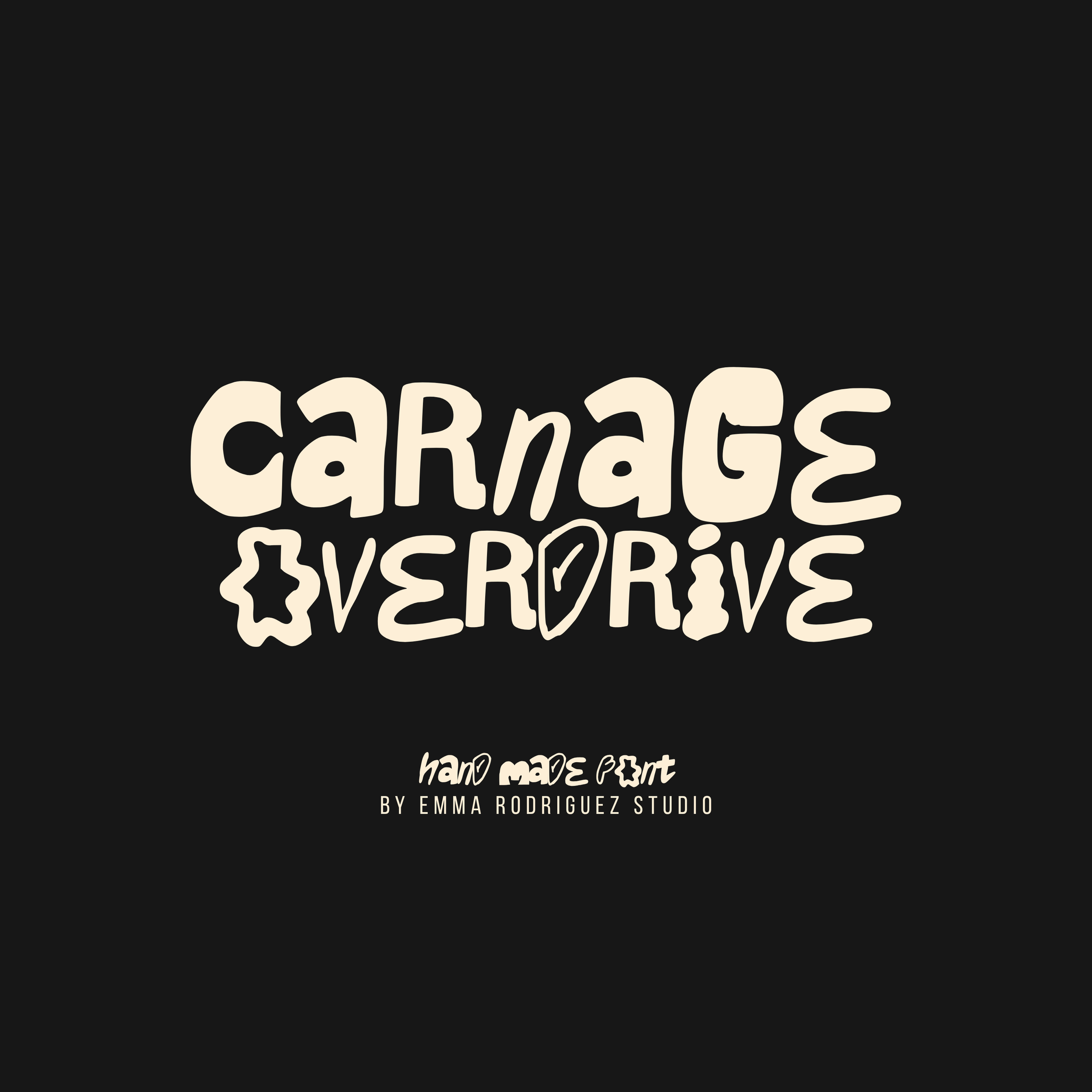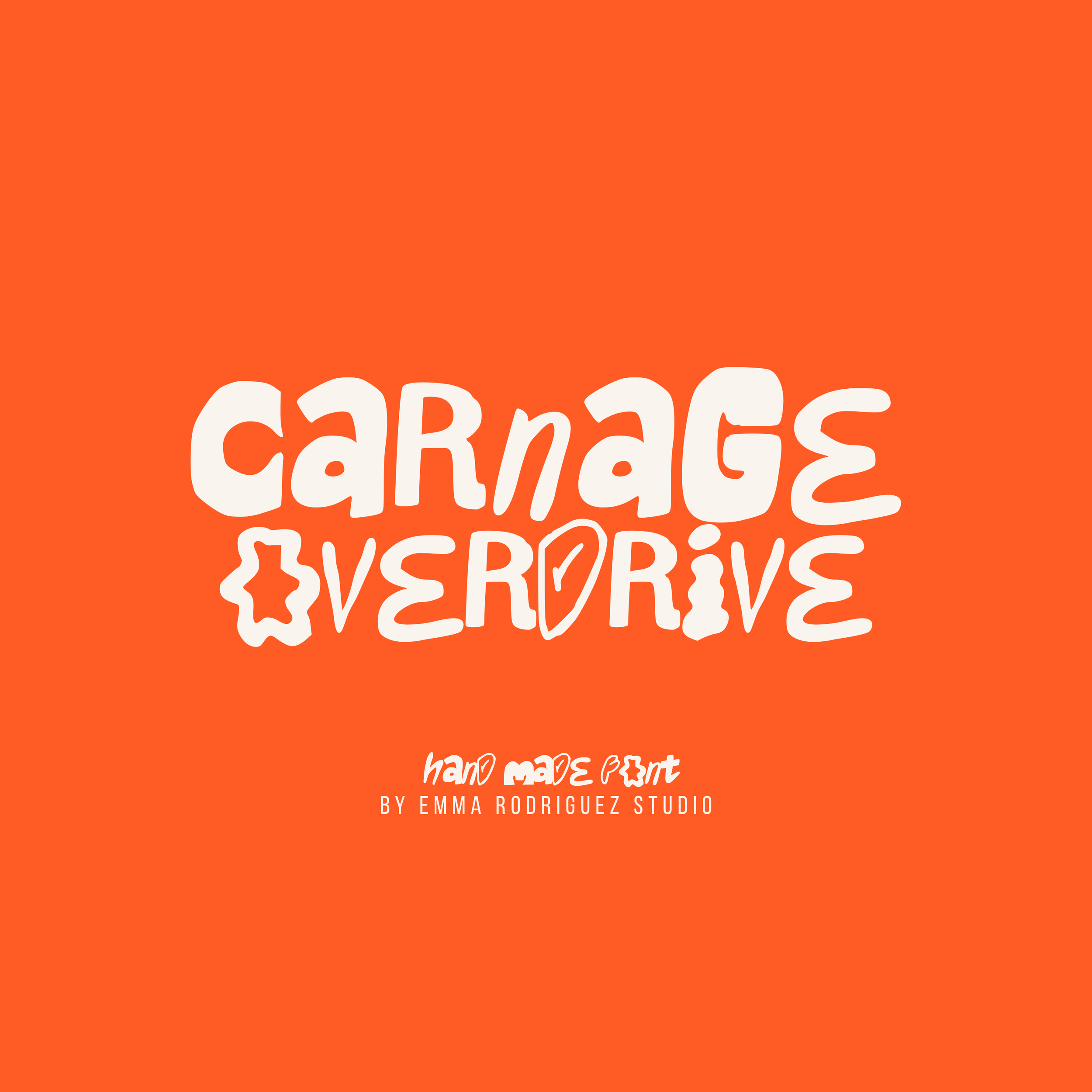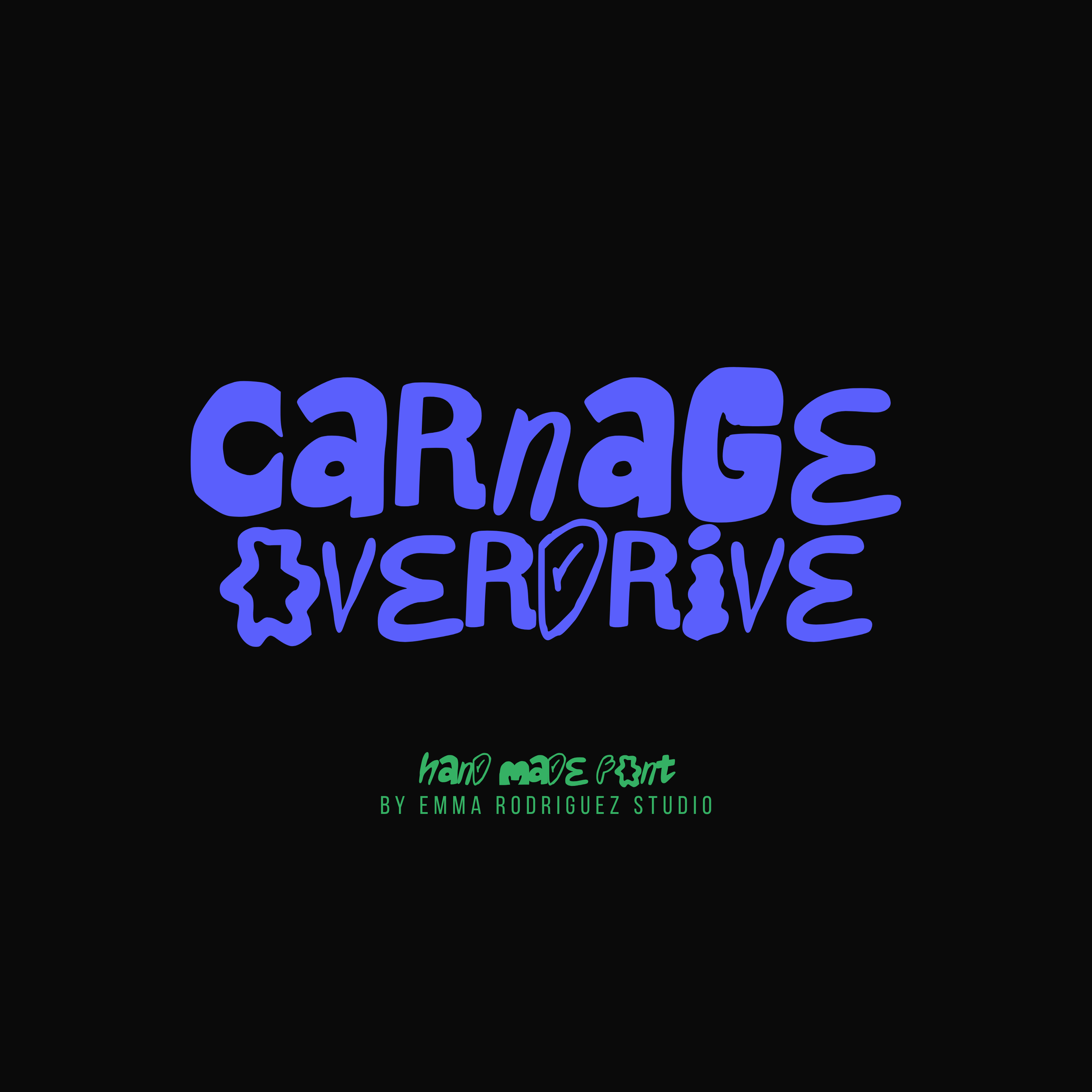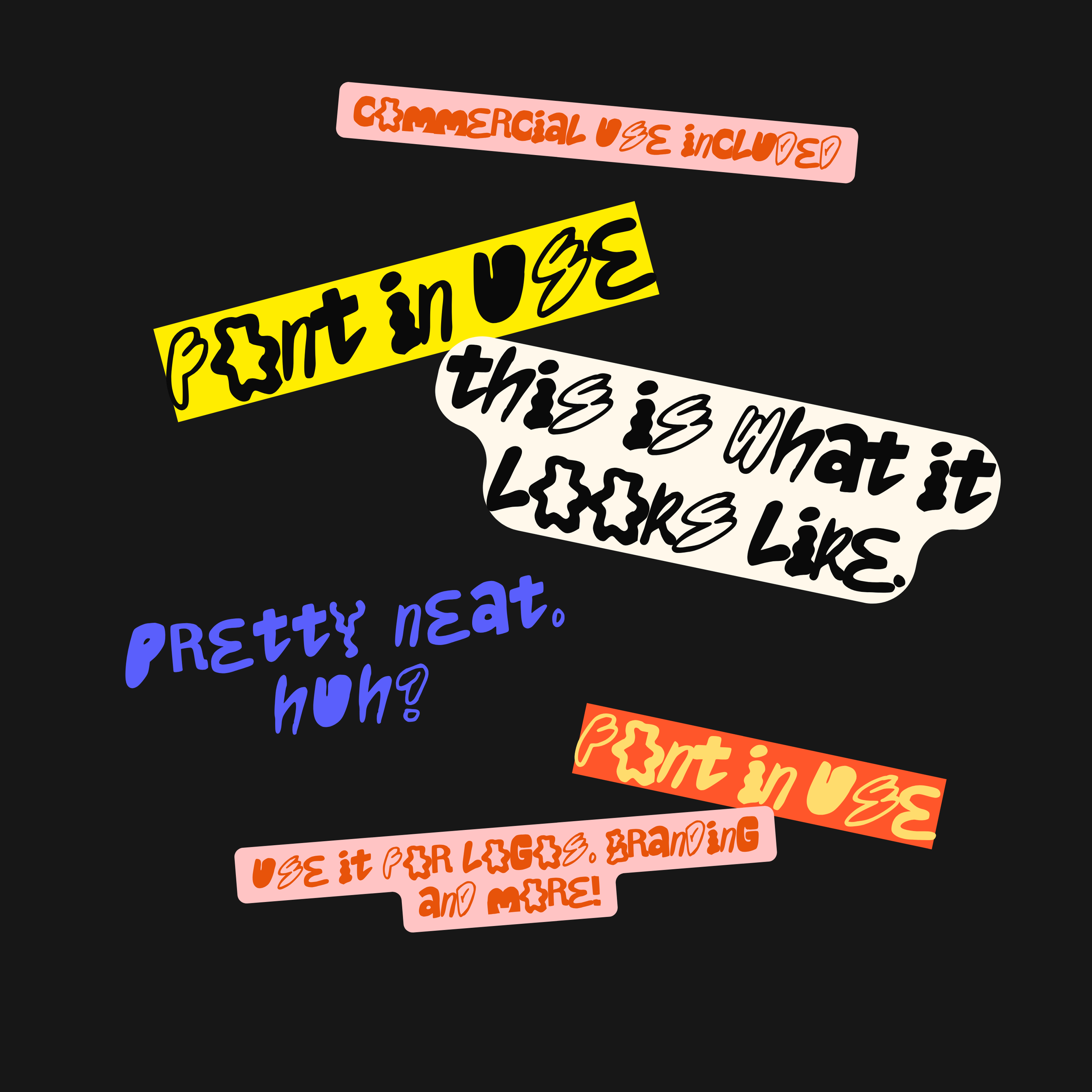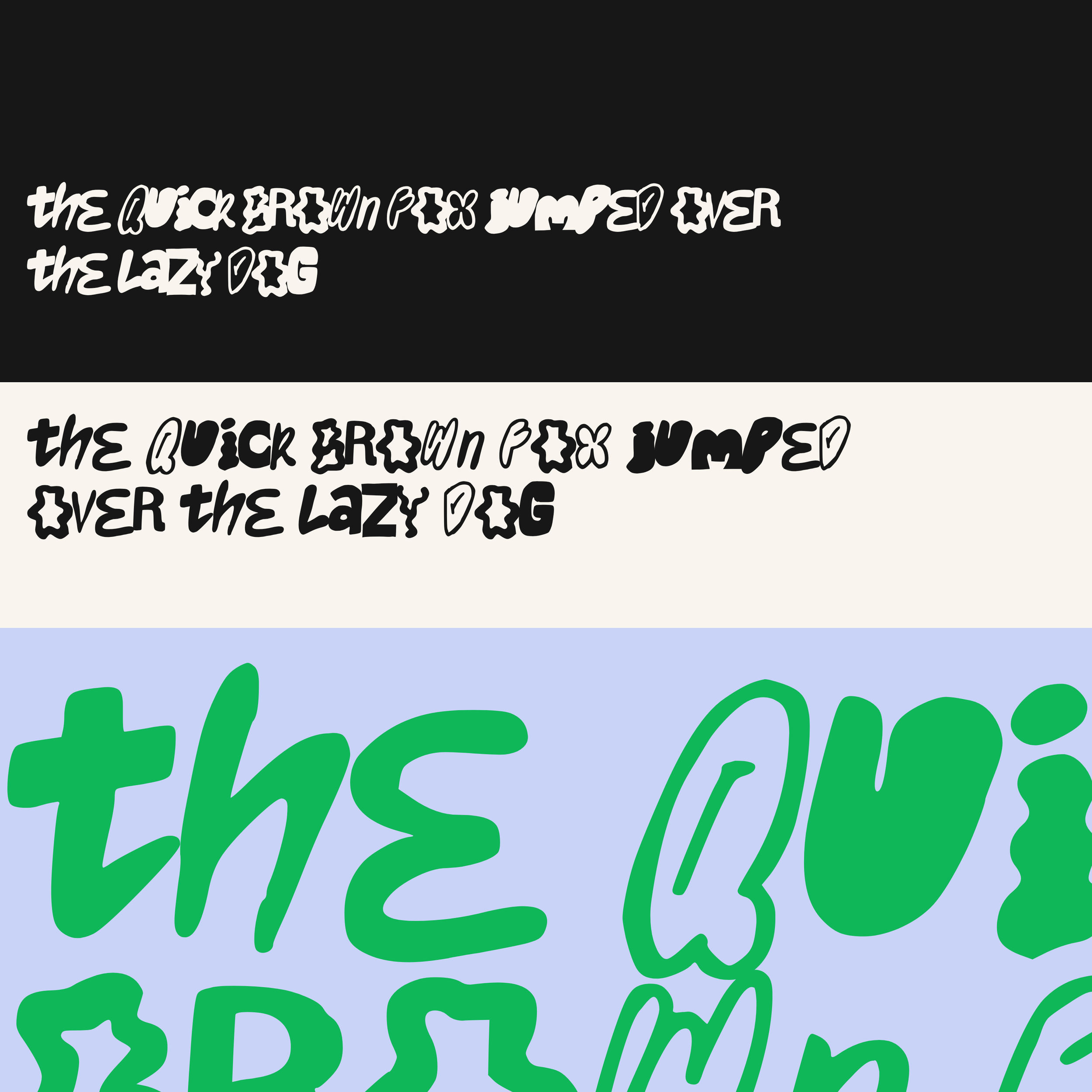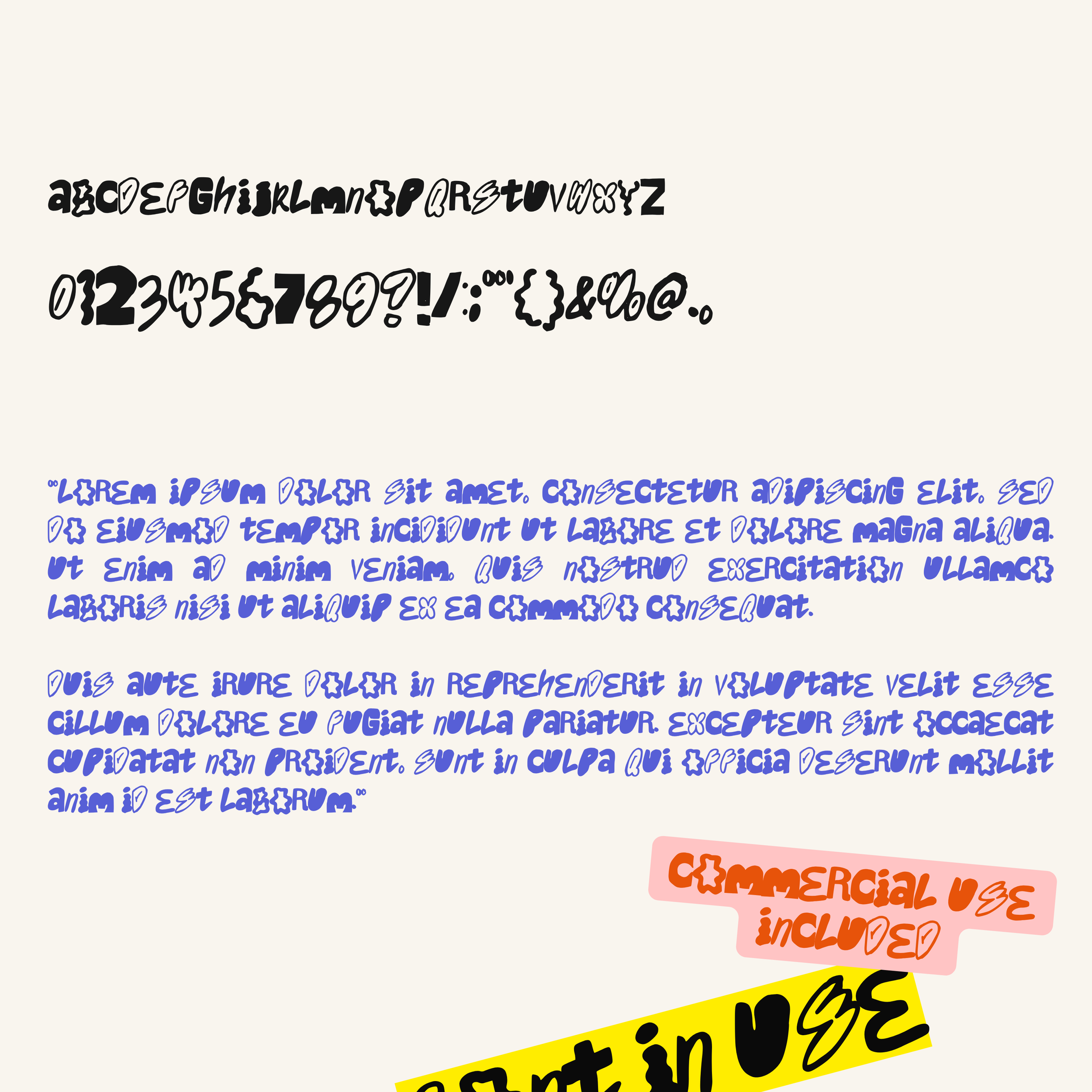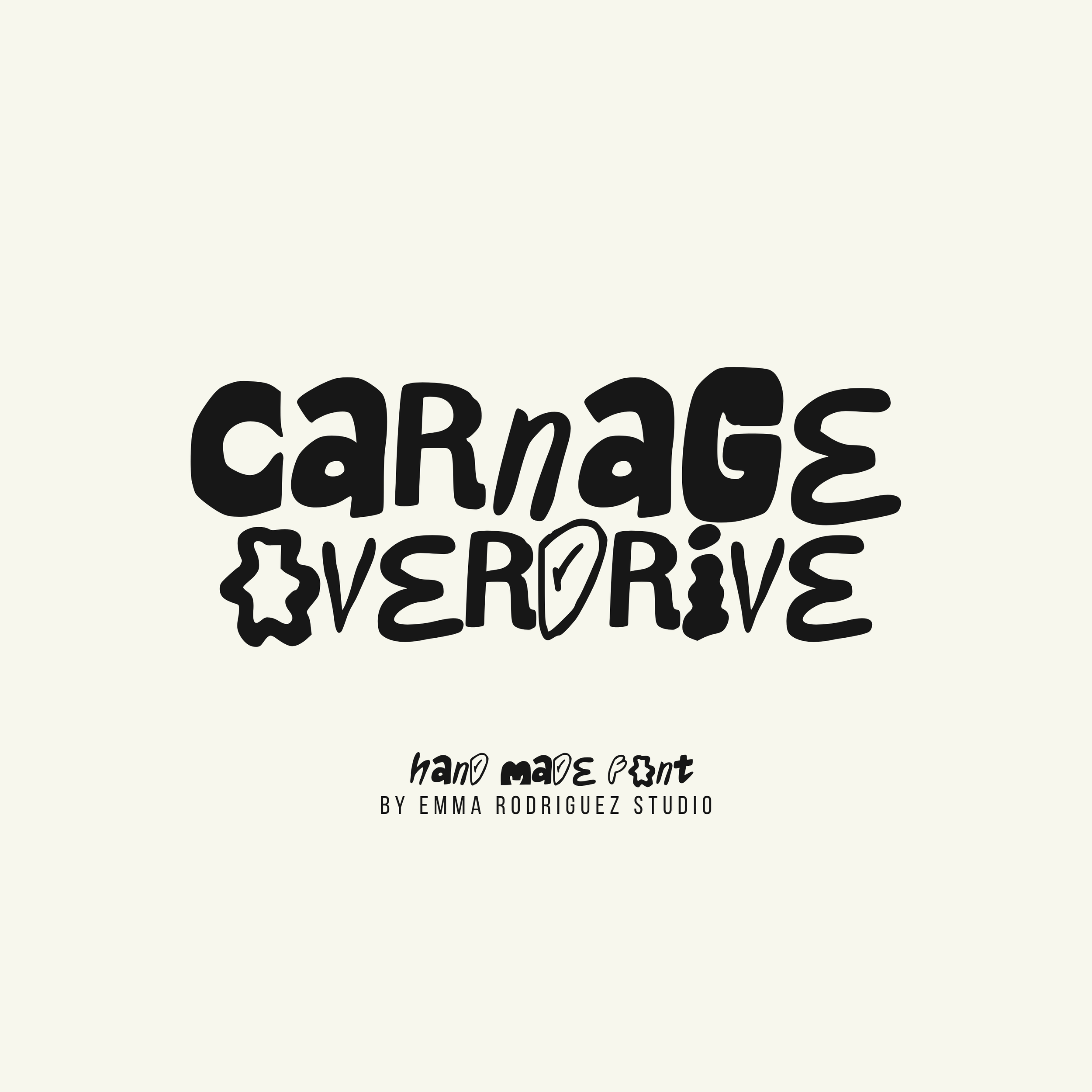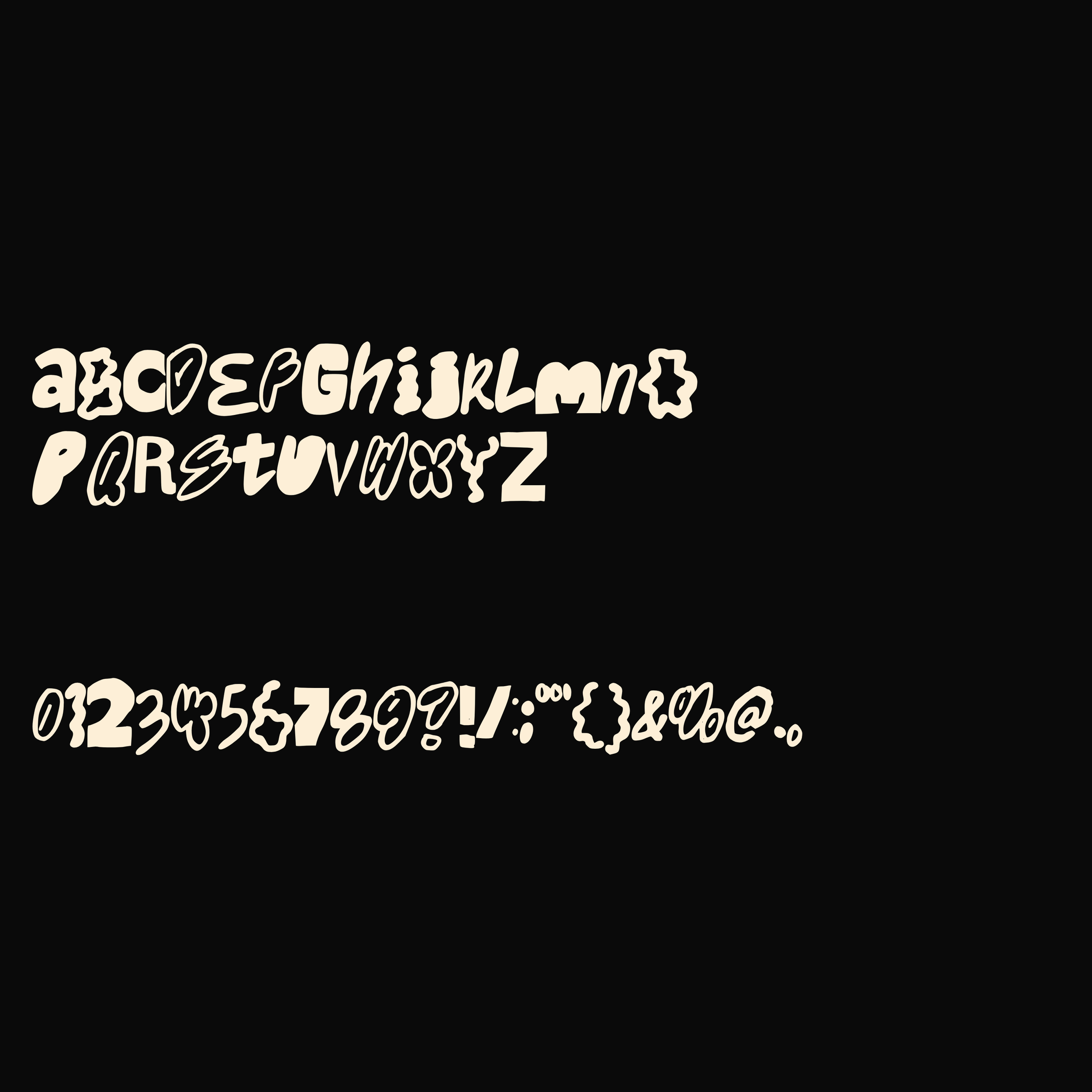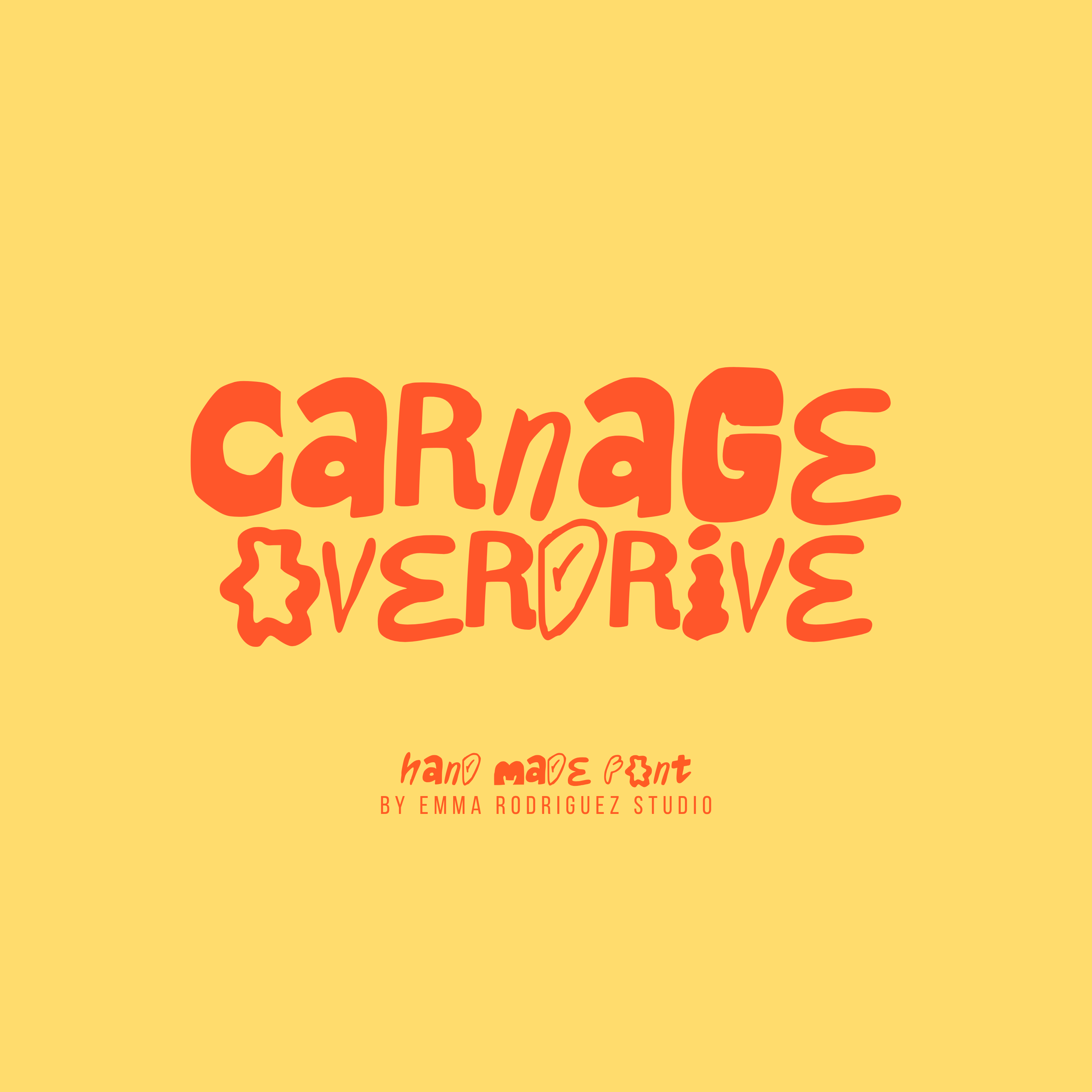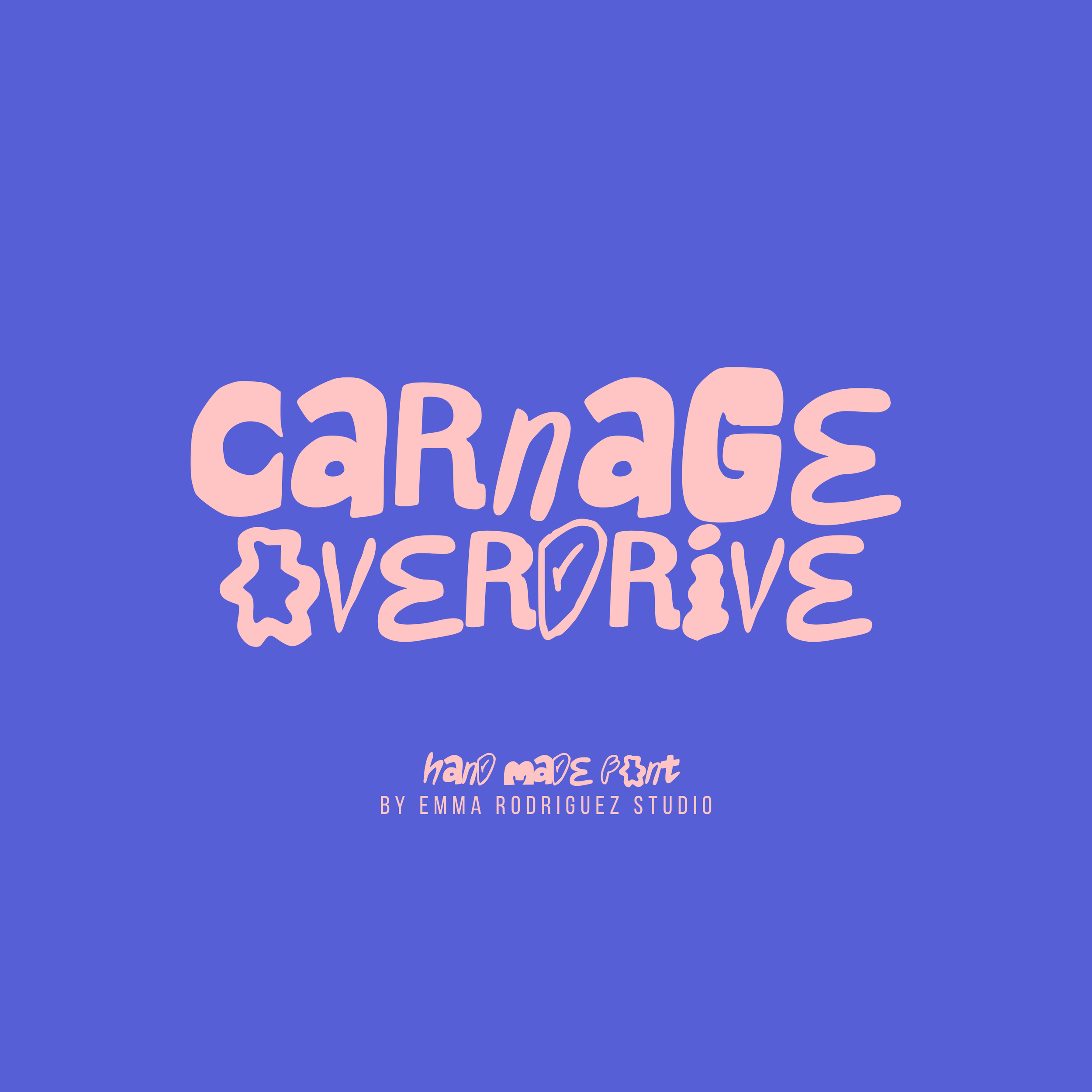
Carnage Overdrive Font - Mixed Experimental Type
Carnage Overdrive is an experimental hand drawn display font built from irregular shapes, exaggerated proportions and deliberately mismatched letterforms. Some characters are chunky and rounded, others narrow, warped or almost symbol-like, giving the whole typeface a chaotic cut-and-paste personality.
This is a mixed character font, combining varied uppercase and lowercase-inspired forms throughout the character set. The changing shapes, sizes and proportions are intentional, creating typography that feels playful, strange and far less predictable than a traditional display font.
Carnage Overdrive is designed for graphic designers, illustrators, artists, poster makers, musicians, branding designers, small businesses and Etsy sellers looking for expressive typography with genuine visual personality.
It works especially well with experimental editorial design, alternative branding, music graphics, contemporary poster design and layouts where perfectly consistent typography would completely miss the point.
Perfect for:
• Posters and art prints
• Album covers and record sleeves
• Experimental branding
• Editorial layouts
• Packaging design
• Merchandise and apparel
• Zines and independent publishing
• Social media graphics
• Stickers and product labels
• Music and event graphics
• Statement typography
Please note that Carnage Overdrive is intentionally handmade and irregular. Letterforms, spacing, proportions, alignment and overall form may vary throughout the character set. The mixed character styles, mismatched shapes, unusual proportions and uneven spacing are deliberate features rather than errors, and some manual kerning or letter placement may be useful depending on your layout.